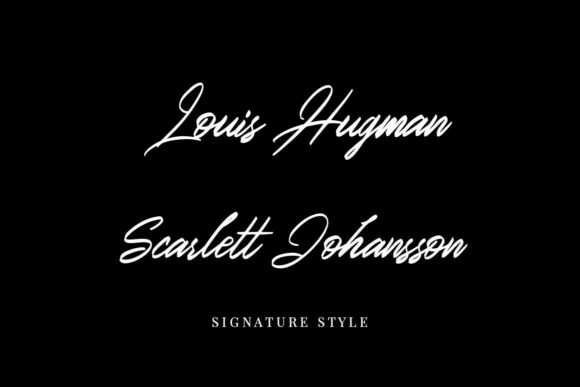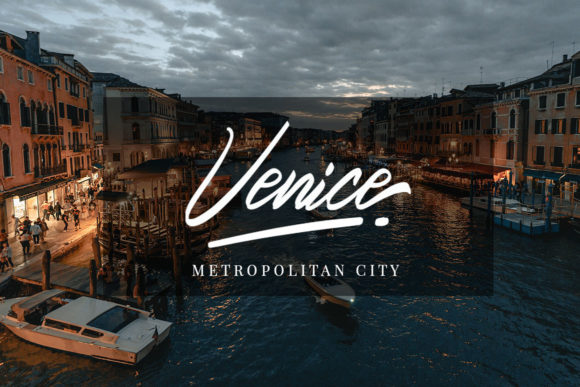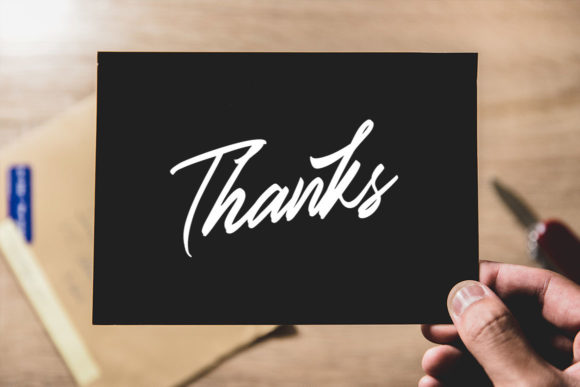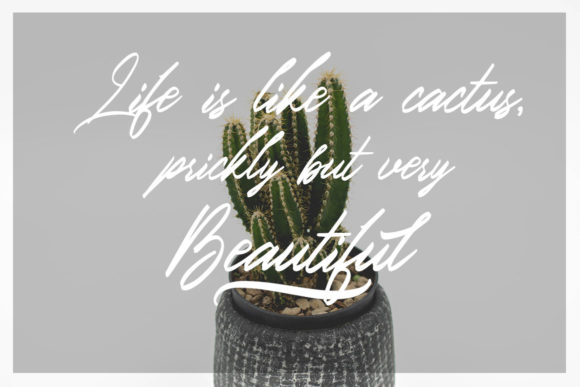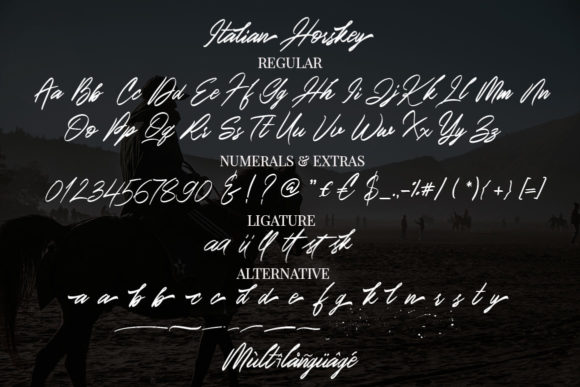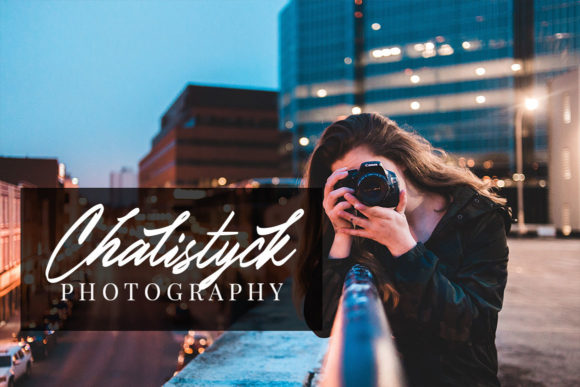
Italian Horskey Font
About Italian Horskey Font
Italian Horskey is a fashionable and stylish script font. It looks stunning on wedding invitations, thank you cards, quotes, greeting cards, logos, business cards and every other design which needs a handwritten touch.